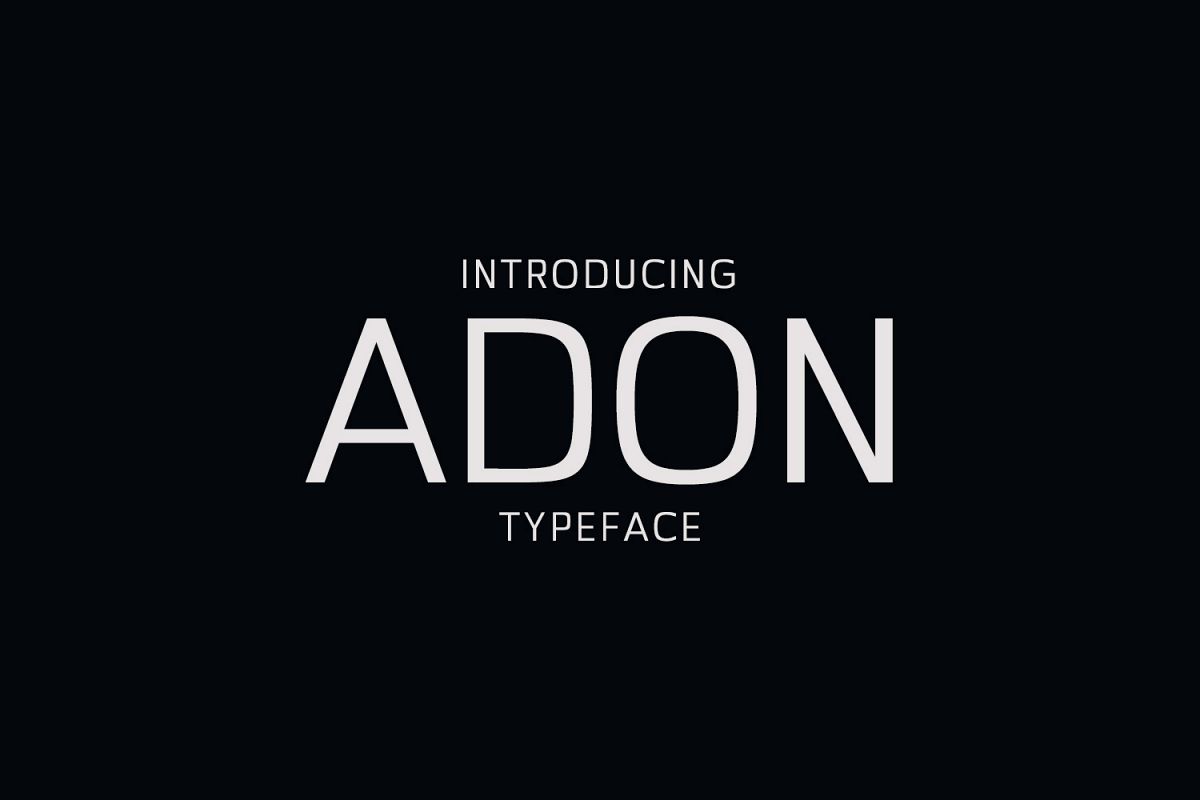
Adon Sans Serif Typeface
Adon Regular
Adon Thin
Adon Bold
Adon Extra Bold
Adon Sans Serif font is a set of 4 weights font family. Adon is good for making creative templates and stationary. Adon suits best for modern / clean designs, logos, headlines, banners and templates etc. It looks gorgeous in all caps with a wide-set spacing if you want to try a classy look, or beautiful on its own in capital and lowercase letters for something completely timeless.Included Features:
• Regular, Thin, Bold and Extra Bold Weights
• Extras: Uppercase Multilingual Letters, Lowercase Multilingual Letters, Numbers & Punctuation + Alternatives.